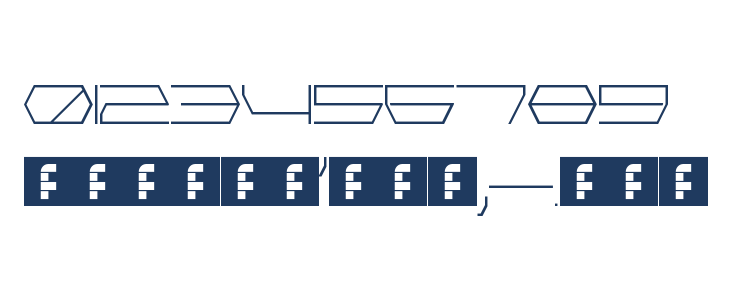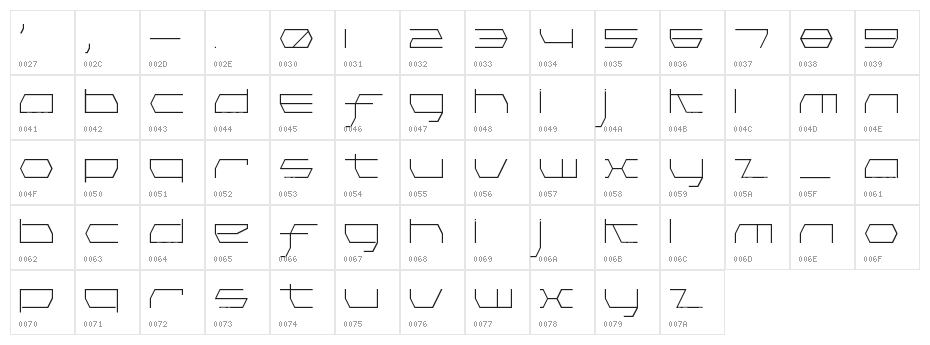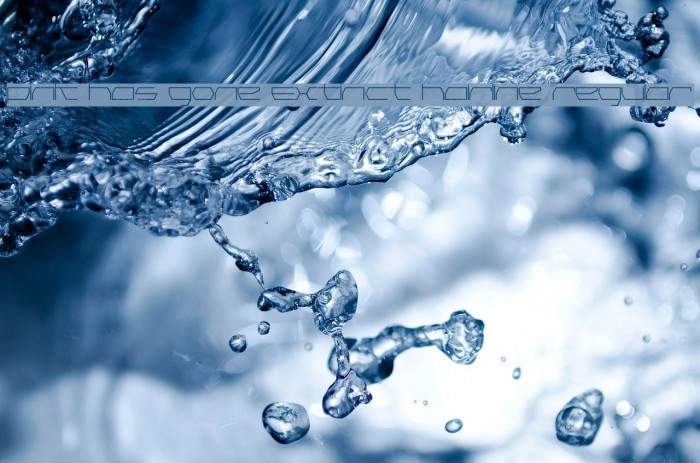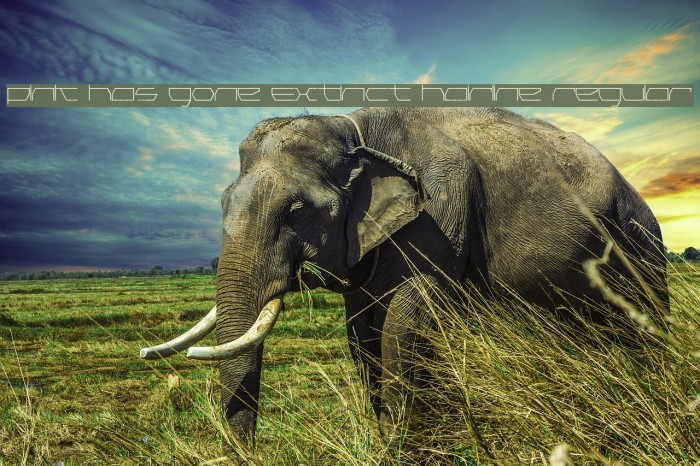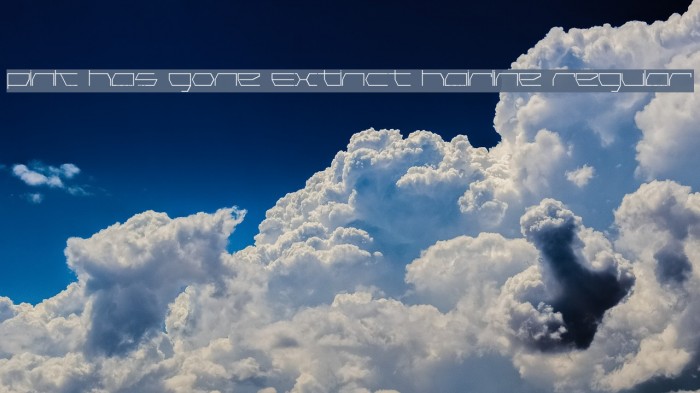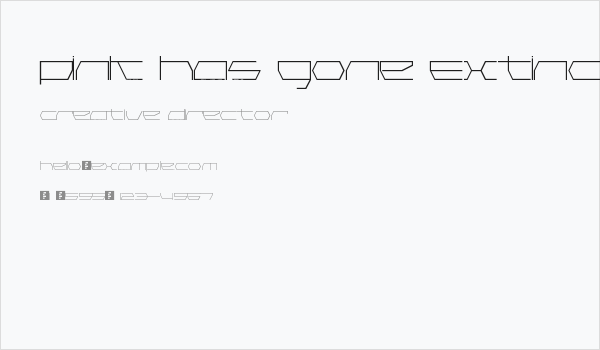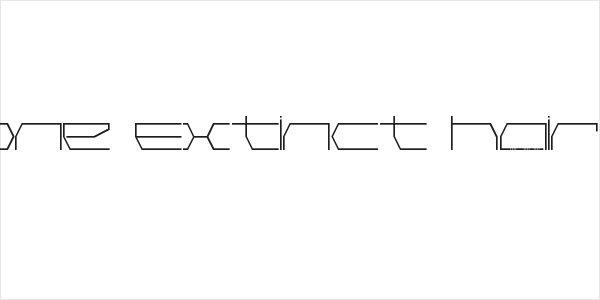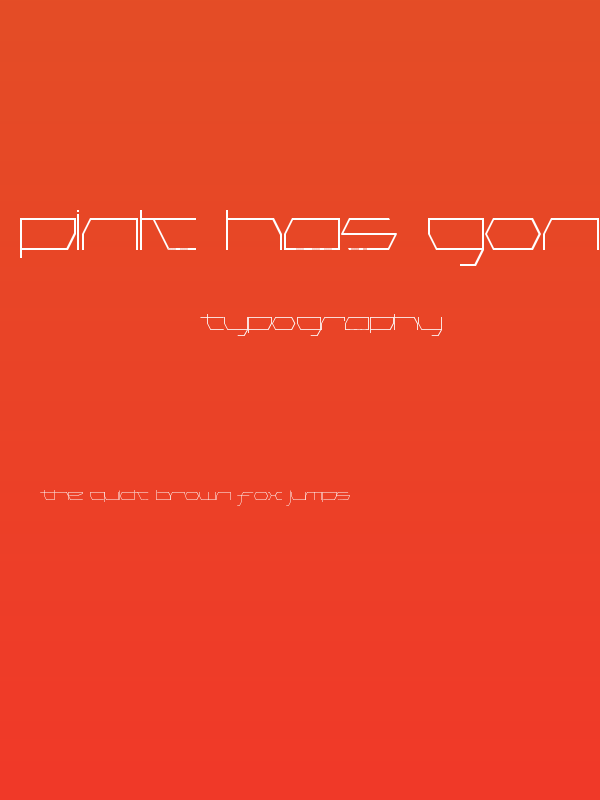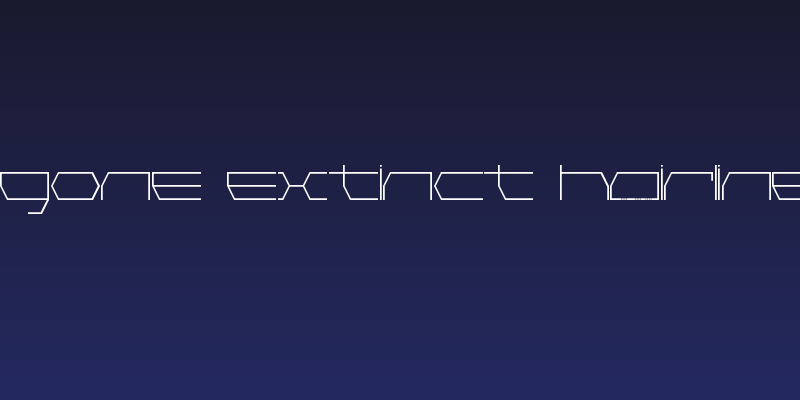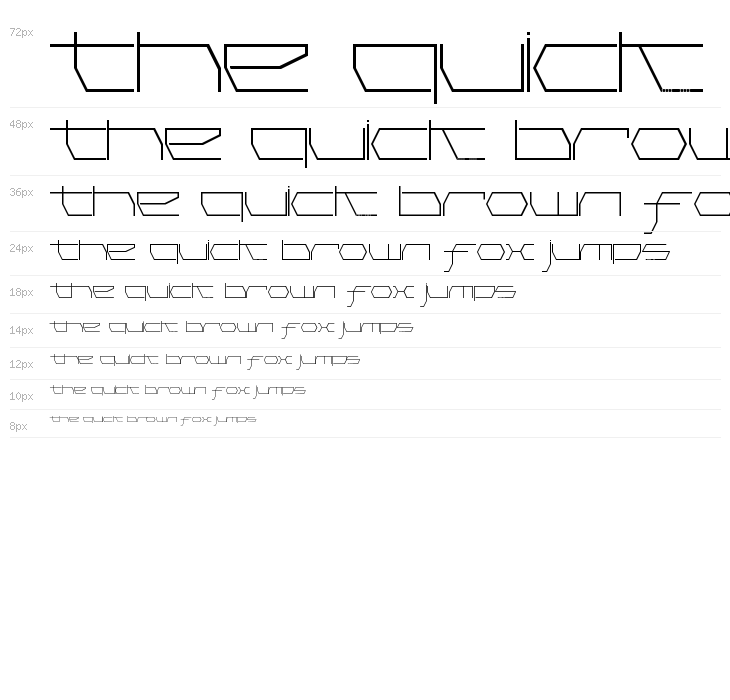
Pink Has Gone Extinct Hairline Regular Font
Pink Has Gone Extinct Hairline Regular Description
This font features a futuristic and geometric design with a distinctively thin and angular appearance. Each character is constructed with sharp lines and edges, creating a highly modern and technical aesthetic. The uppercase and lowercase letters share a consistent style, emphasizing a minimalist approach with a focus on linearity and precision. The numbers and special characters maintain this theme, offering a cohesive look across all glyphs. The font's hairline weight contributes to its delicate and airy feel, making it suitable for designs that require a sleek and contemporary touch.
Use CaseLogos, Headlines, Digital interfaces
Proposed ProjectsIdeal for tech branding, sci-fi themed projects, modern art installations, and digital interfaces.